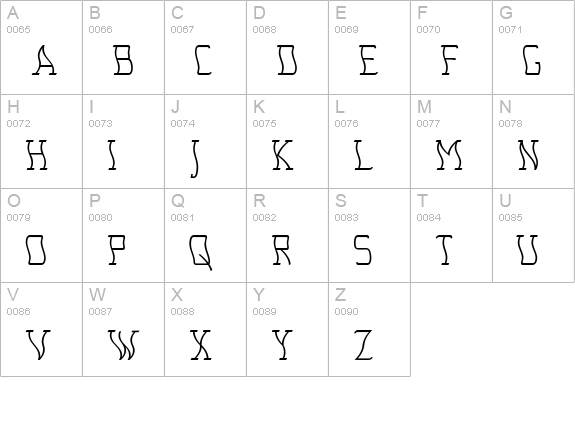
Seasick Font Details
Seasick font is a mesmerizing typeface that will surely make waves in your design projects. With its unique and fluid letterforms, this font captures the essence of the ocean, evoking a sense of movement and fluidity. The gentle curves and undulating shapes of the letters create a soothing and calming effect, just like the ebb and flow of the sea. This font is perfect for a wide range of design applications, from branding and logos to packaging and editorial design. Its versatility allows it to be used in both digital and print formats, adding a touch of sophistication and elegance to any project. But the best part? Seasick font is completely free! Yes, you read that right. This stunning typeface is freely available to download at FontsMarket.com. Whether you're a professional designer or a hobbyist, you can now access this captivating font without breaking the bank. So dive into the world of Seasick font and let its graceful and fluid letterforms transport you to the depths of creativity. With its seamless blend of beauty and functionality, this font is sure to make a splash in your design endeavors. Don't miss out on this incredible opportunity to enhance your designs with Seasick font – download it for free today at FontsMarket.com!